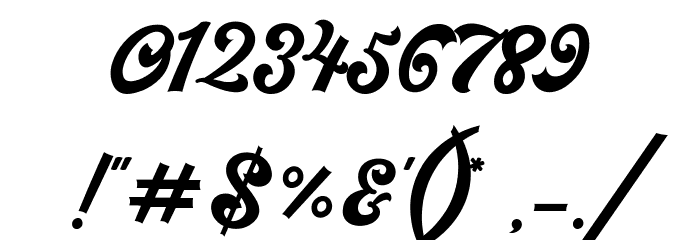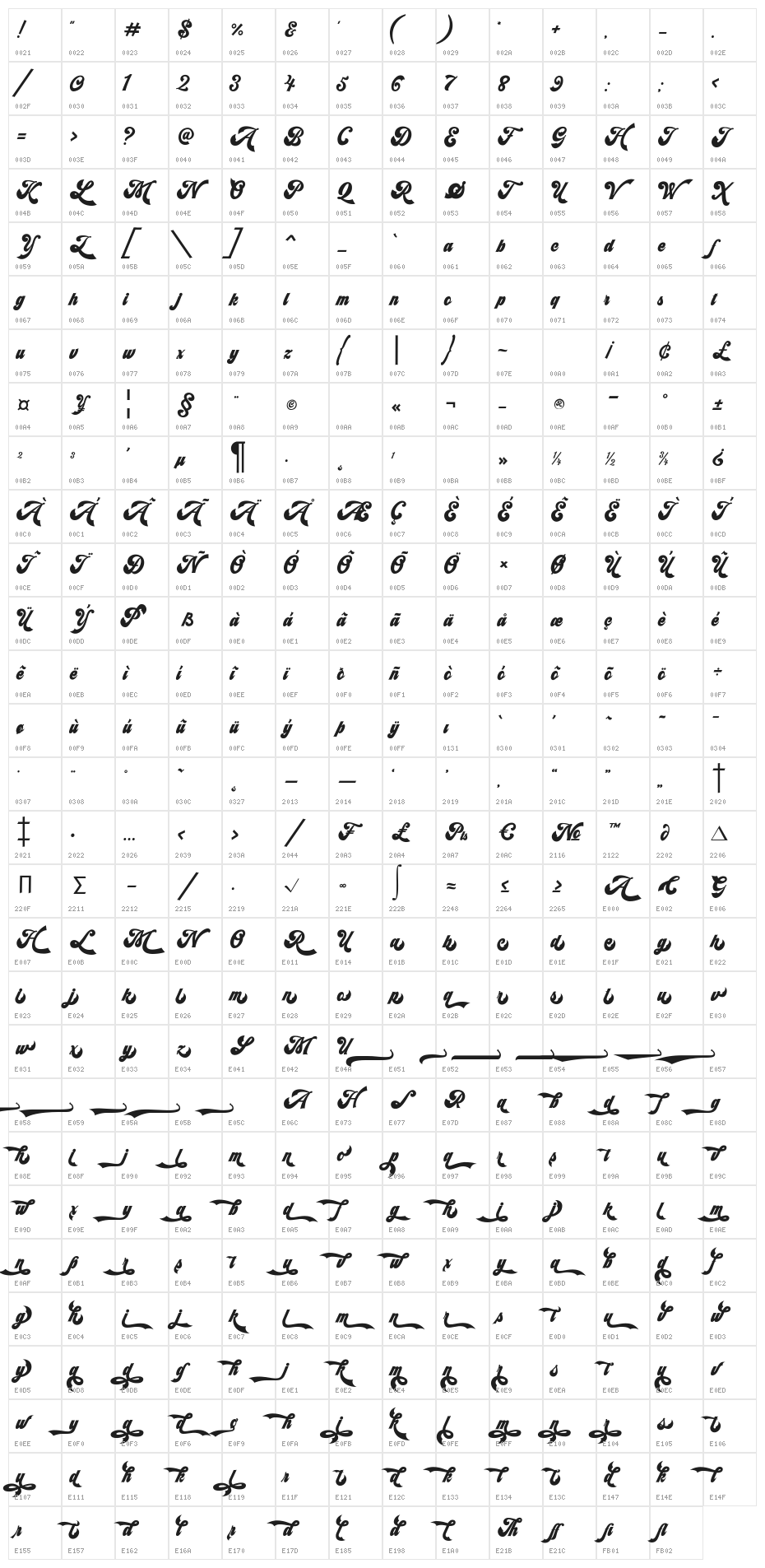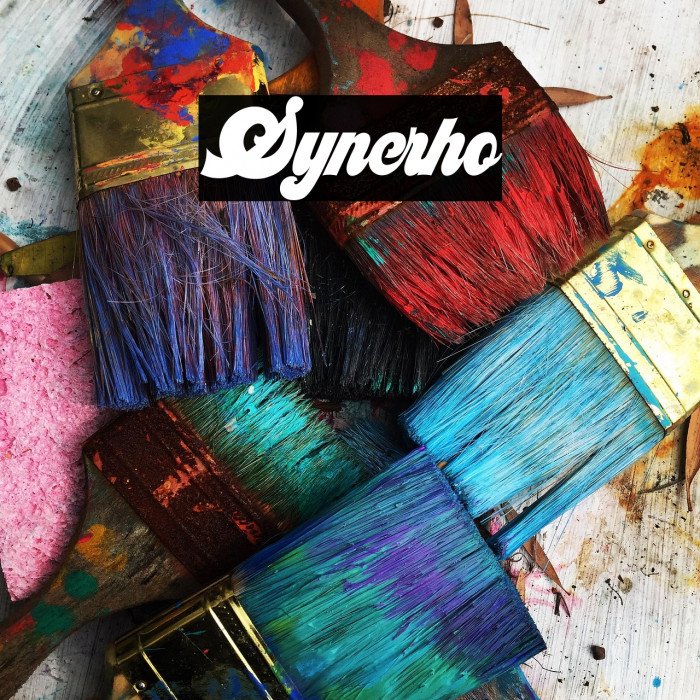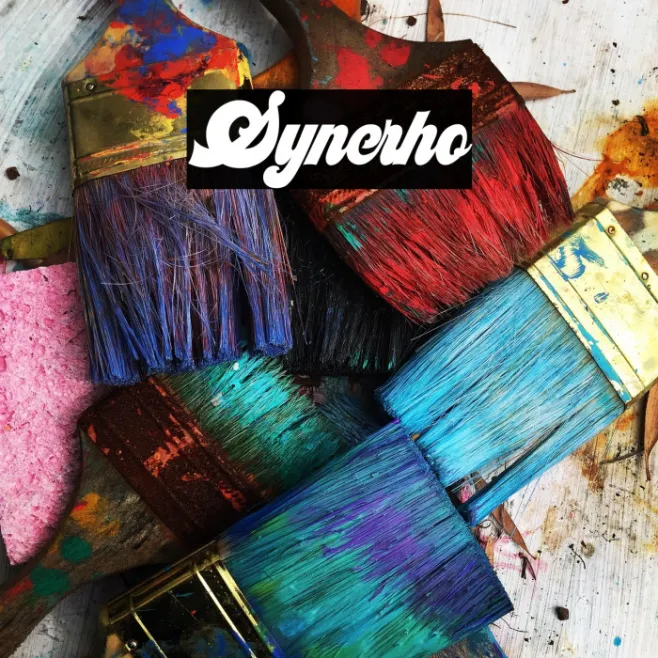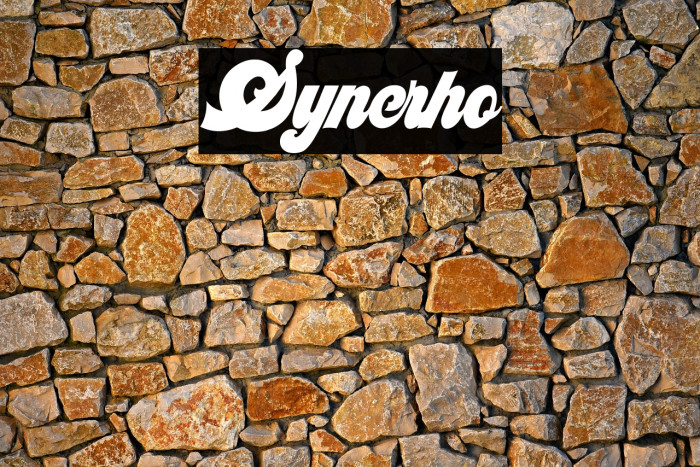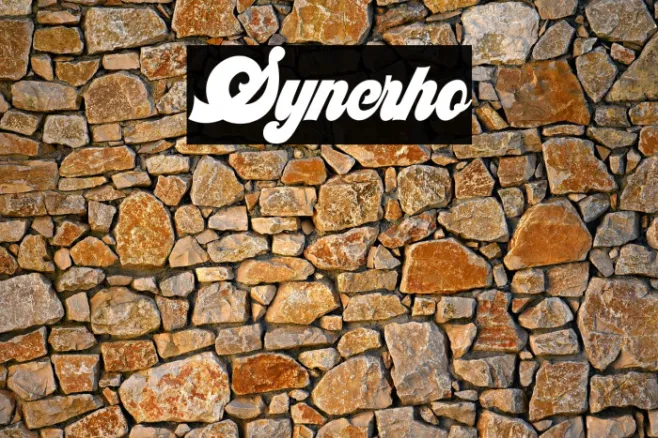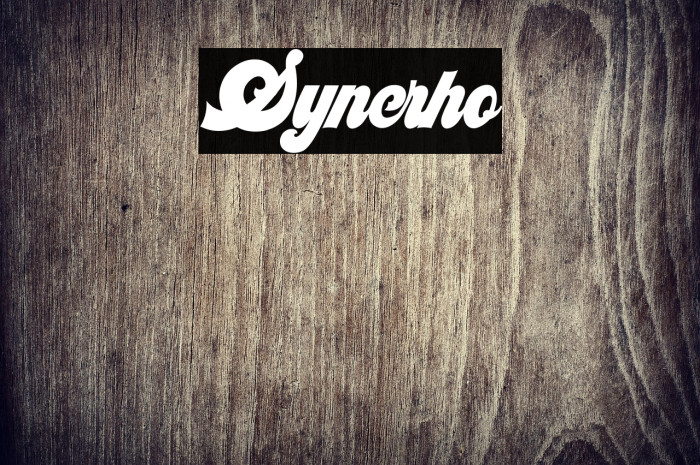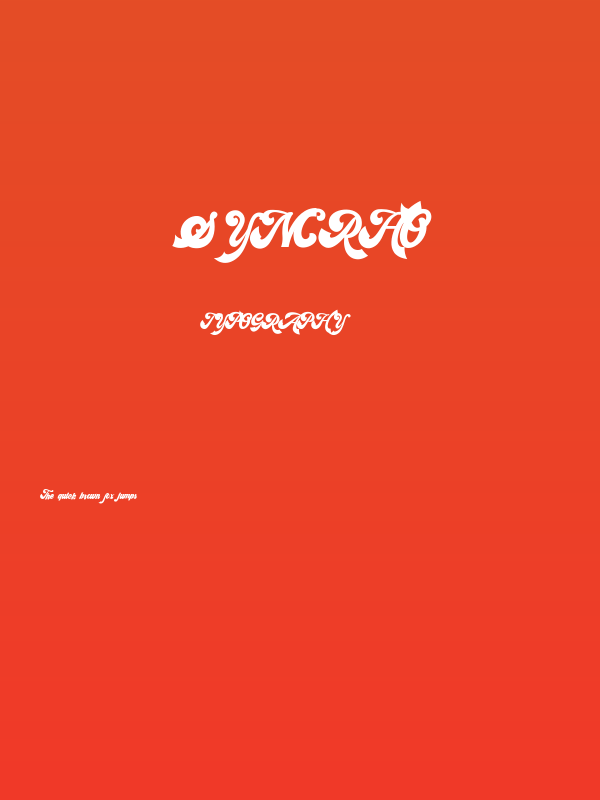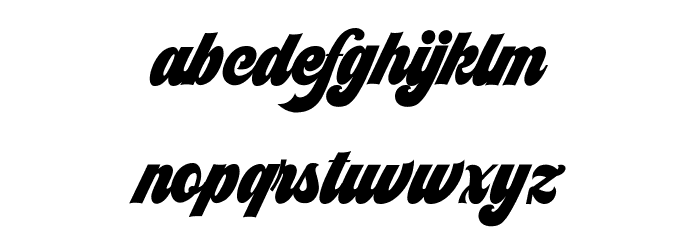
Syncrho Font
Syncrho Description
This font features a bold and dynamic script style with a strong presence. The letters are intricately designed with thick strokes and sharp edges, giving it a dramatic and impactful appearance. The uppercase letters are particularly elaborate, with sweeping curves and flourishes that add a sense of movement and elegance. The lowercase letters maintain a consistent style, complementing the uppercase with their own unique flair. Numbers and special characters are equally bold, ensuring uniformity across all elements. The overall design is reminiscent of traditional calligraphy, yet it maintains a modern twist, making it suitable for a variety of creative applications.